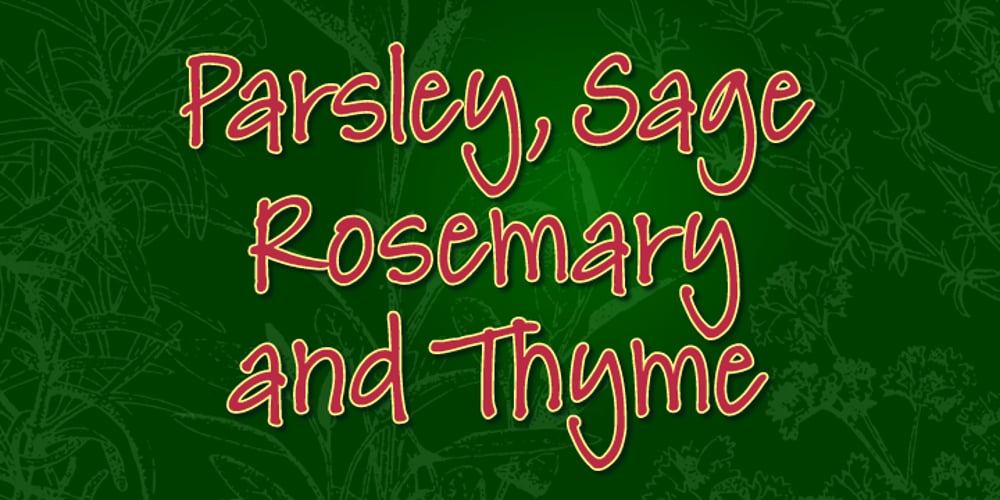
Danielle BF Font Family was designed by John Bomparte, Danielle Paradis and published by Bomparte’s Fonts. Danielle BF contains 1 styles and family package options. When I first saw the scrapbook pages of Danielle Paradis, I was immediately struck by the funky-cool distinction of her handwriting style. I was inspired and felt moved to ask her for samples, from which to build a complete font. This warm and friendly font is applicable to a wide variety of uses. Use it wherever a casual cool look is desired. It’s right at home on trendy restaurant menus, children’s publications, organic food labels, correspondence and of course, scrapbooks, to suggest a few. A number of stylistic alternates are included.